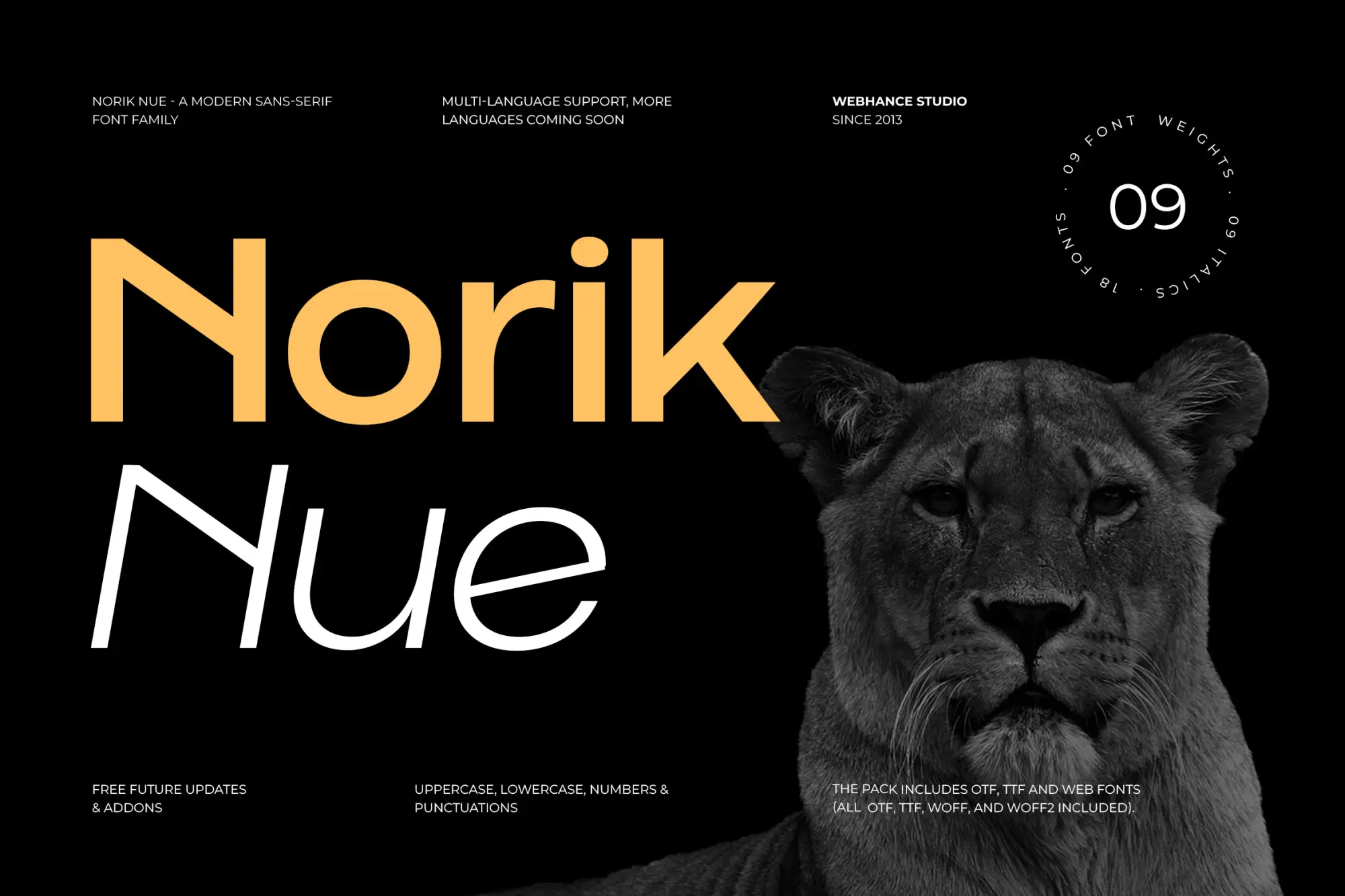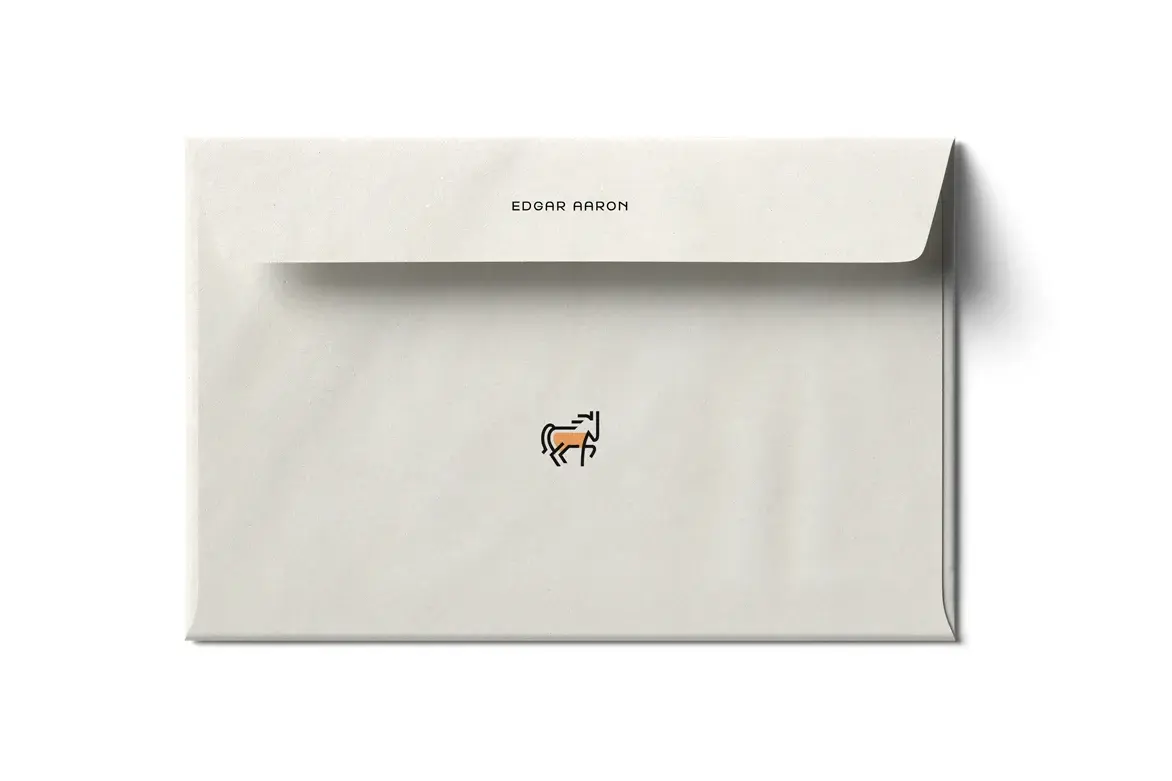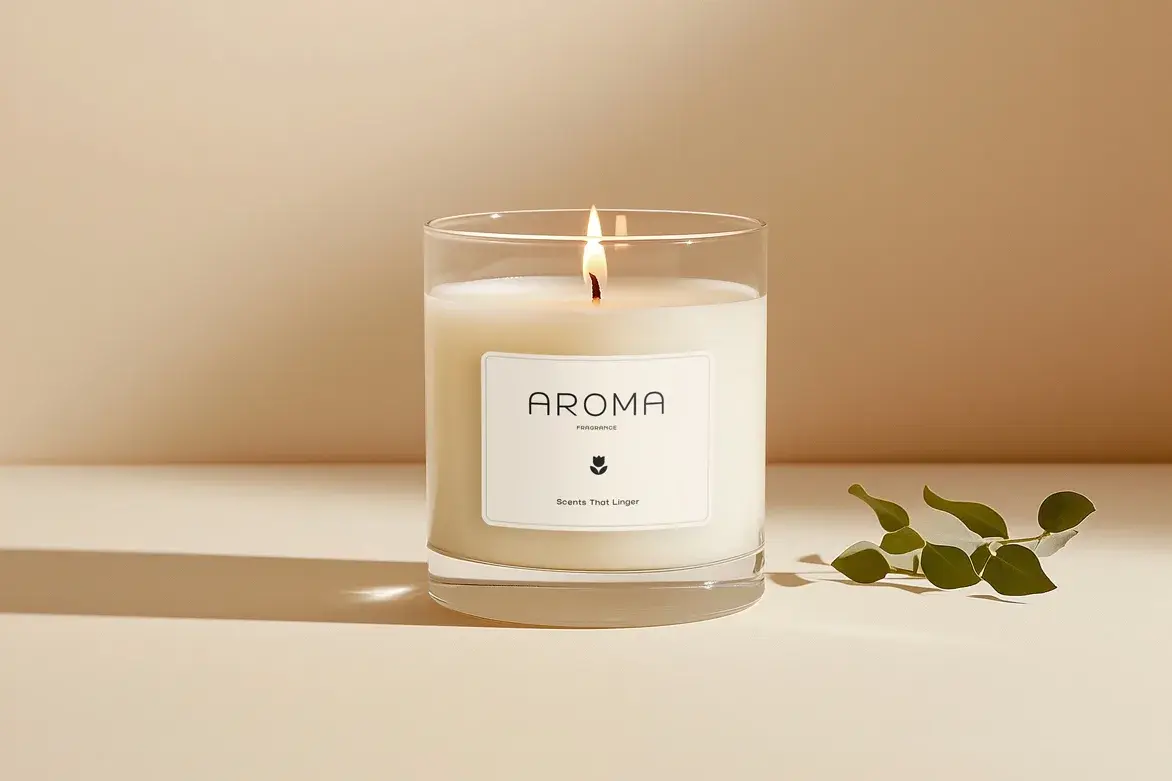
Norik Nue
Norik Nue is a modern sans-serif font perfect for a variety of design projects, including branding, logo design, web design, and social media graphics. This geometric sans-serif typeface offers clarity and structure, making it an excellent choice for anyone looking for a professional and readable font. Norik Nue features a clean aesthetic with a friendly personality, ensuring your text stands out in digital advertising or as an Instagram font. Available in multiple weights and with italic options, Norik Nue supports a wide range of characters, making it versatile for both print and screen use. Whether you’re creating YouTube thumbnails, motion graphics, or packaging designs, Norik Nue provides the consistency and distinctive style you need to elevate your work. Incorporating Norik Nue into your projects will help you achieve a polished look that resonates with your audience, whether it’s for social media or editorial design.